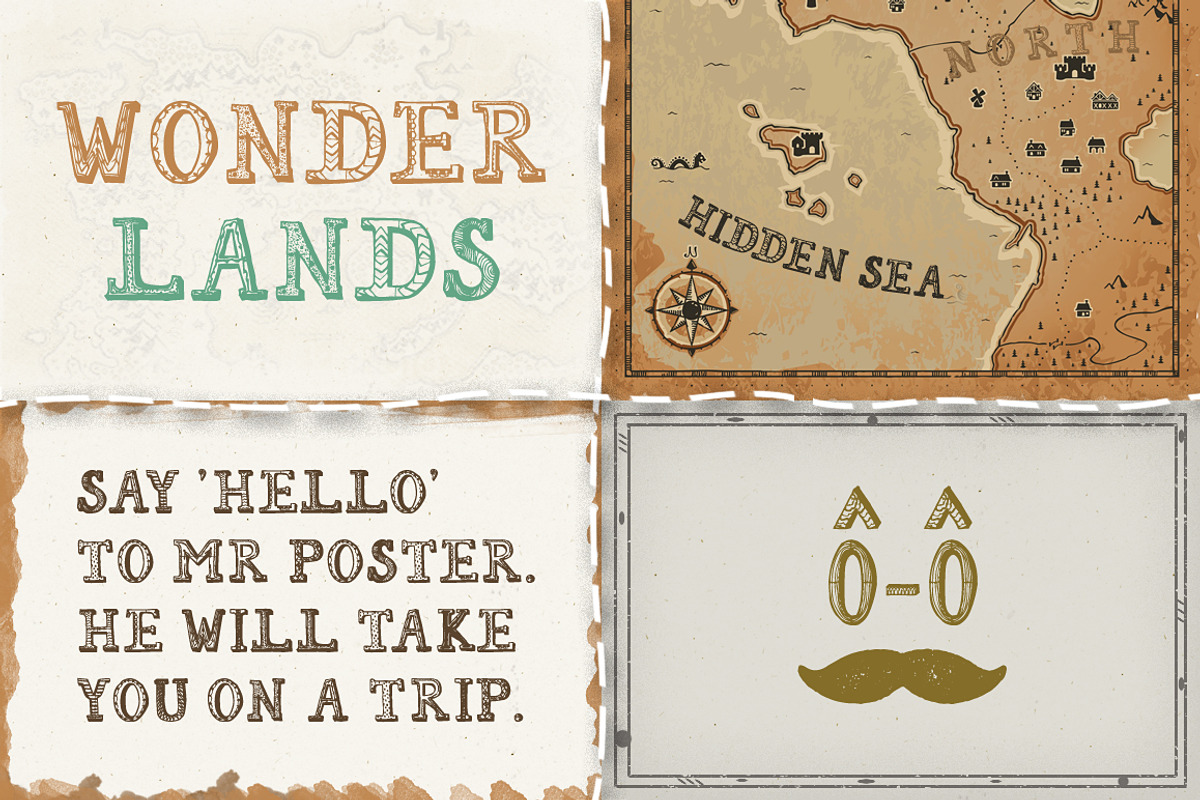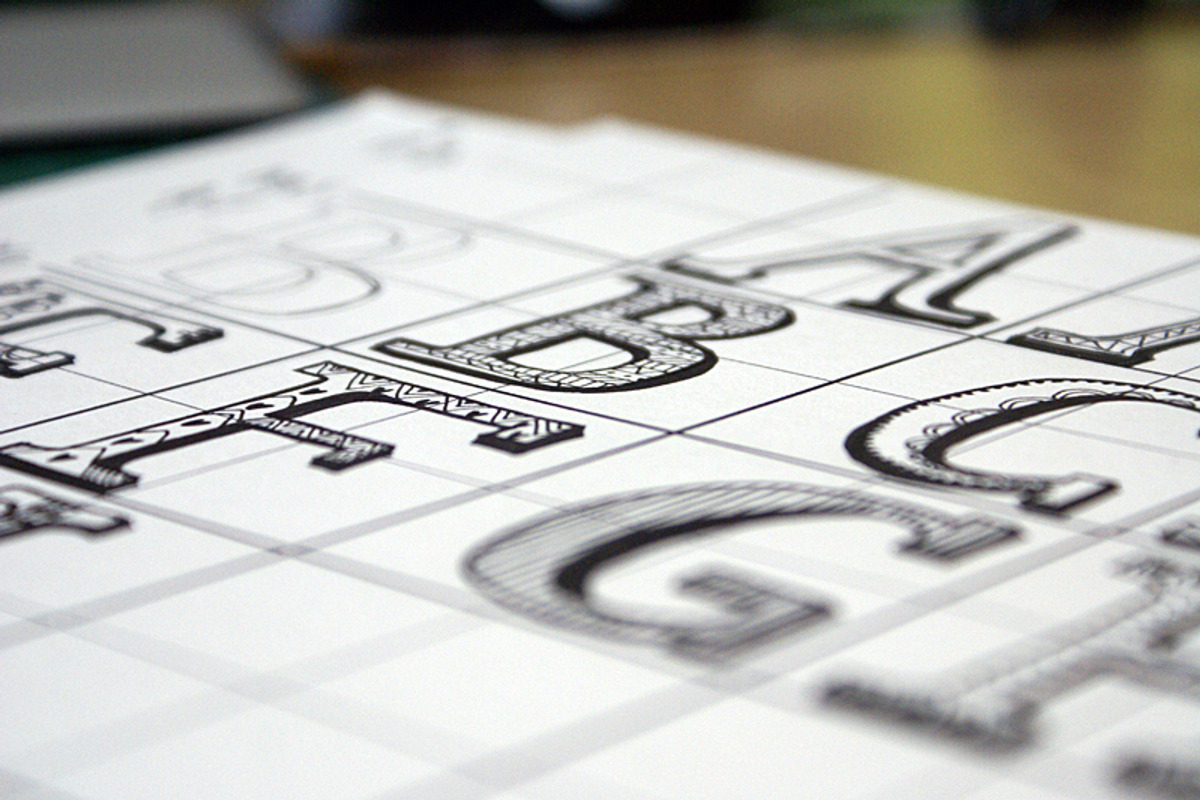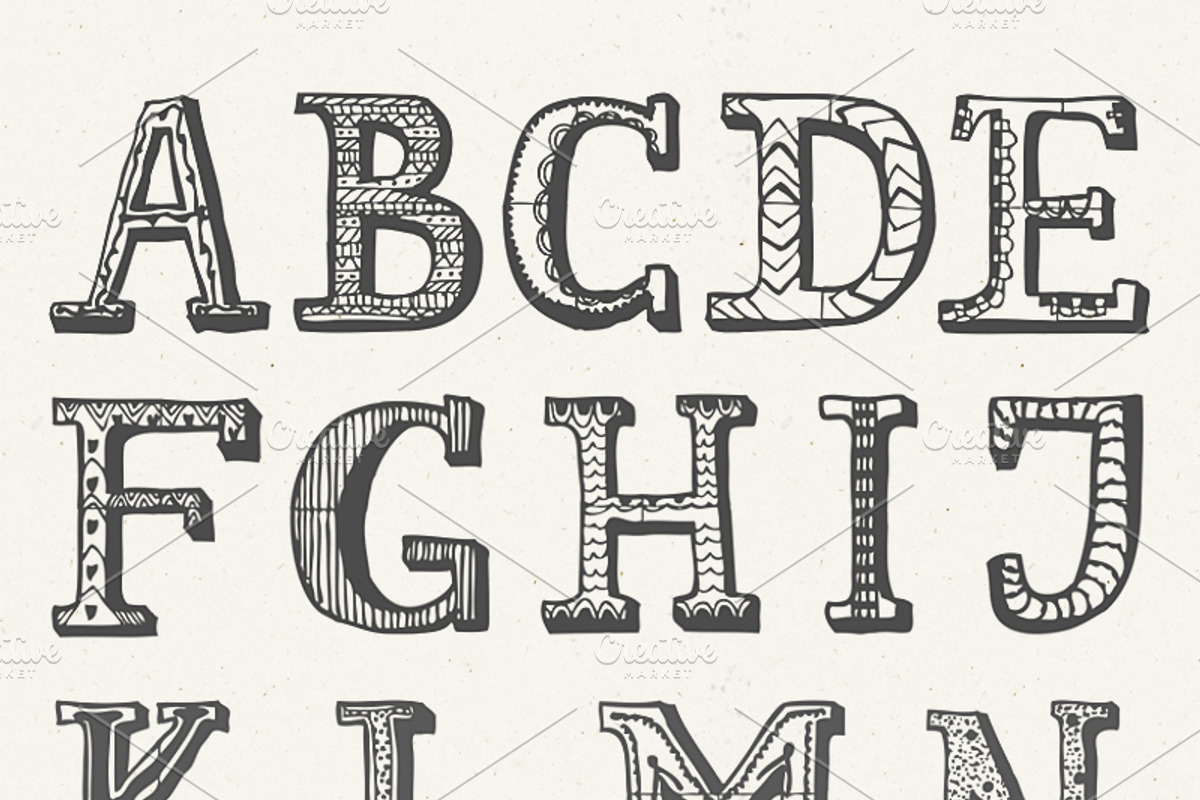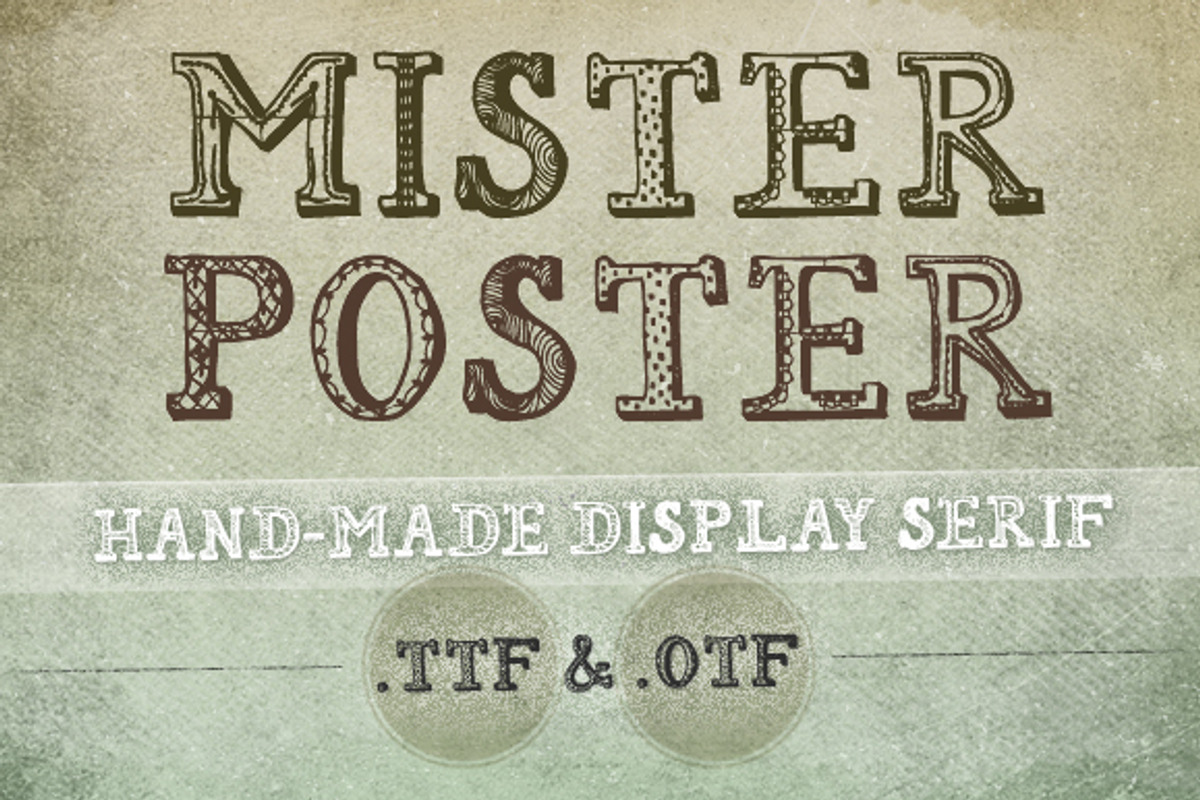
Mr Poster Font
Mr Poster Font by Frisk Shop is a font selected for branding, posters, packaging, typography.
Why Mr Poster Font is worth a look
Mr Poster Font by Frisk Shop fits naturally into Branding, posters, packaging, typography.